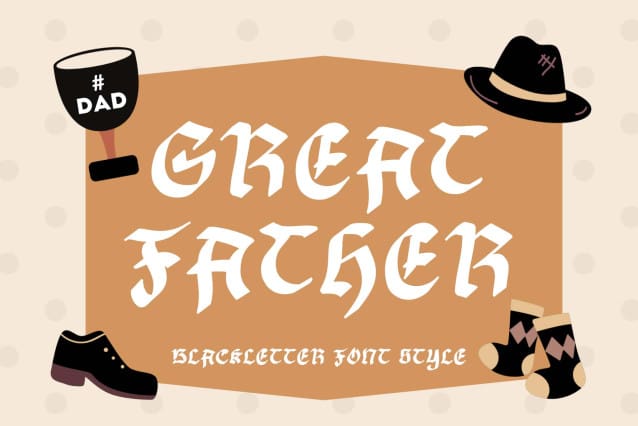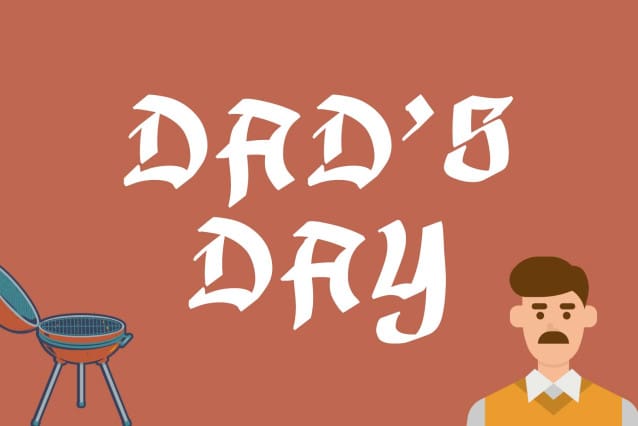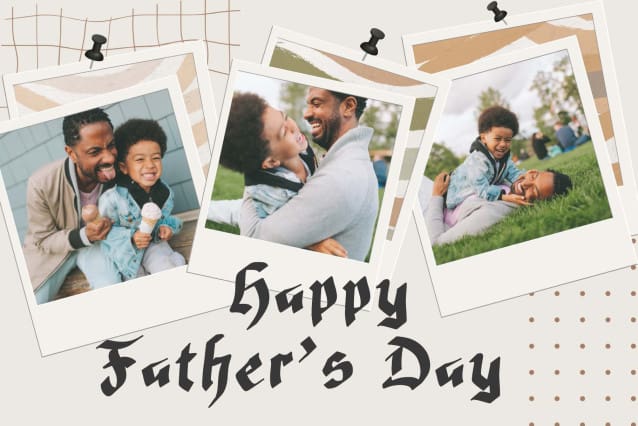
Great Father Font
Great Father Font is an elegant blackletter font. This font was made with all my heart because I love my father figure. Equipped with uppercase letters, lowercase letters, numerals, punctuations and multilingual support. Very suitable for father’s day, mother’s day, Christmas, summer, warrior, 4th of July and others.